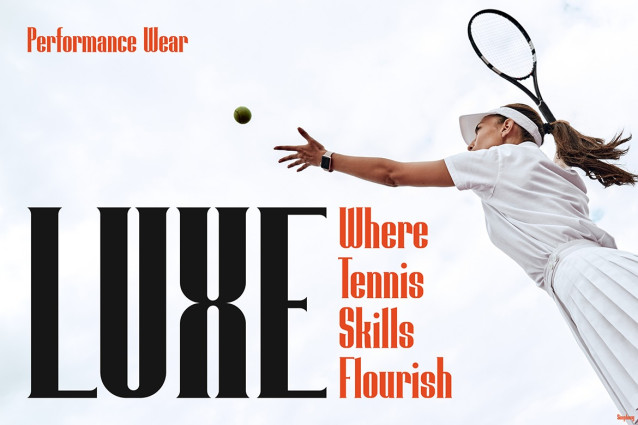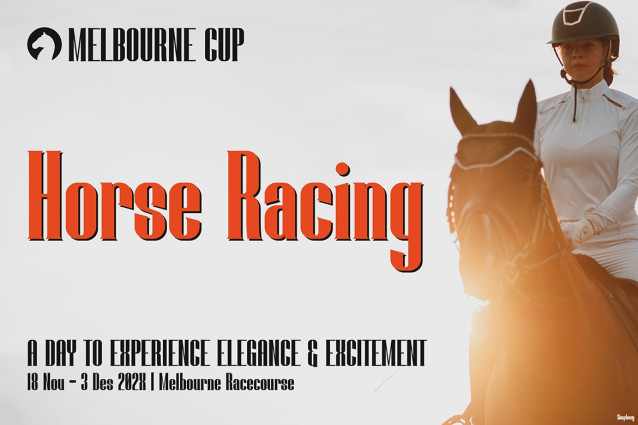
Simphony Font
Simphony Font is not just a typeface—it’s a strong visual statement. With bold strokes and geometric balance, this font instantly grabs attention. Moreover, its clean readability makes it versatile for digital and print designs. Each letter is shaped with precision, blending elegance and strength in every detail. Therefore, Simphony works perfectly for posters, branding, editorials, and social media projects. As a result, your designs gain energy, confidence, and timeless aesthetics while staying modern and stylish.
Another reason Instagram Font Simphony stands out is its balance between power and elegance. The design feels bold yet refined, which makes it flexible for both creative and professional needs. In addition, its structure allows easy pairing with minimalist layouts or busy backgrounds, ensuring adaptability for many visual contexts.